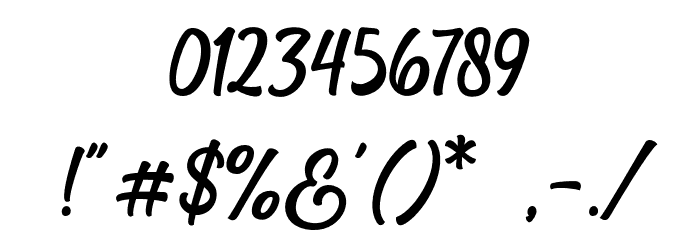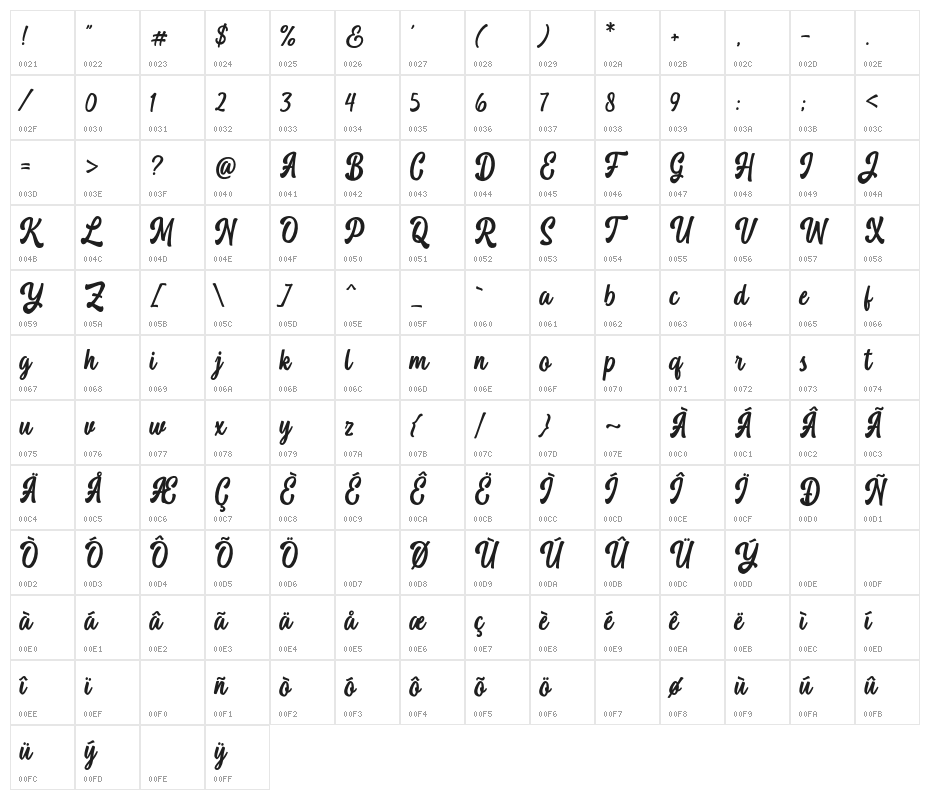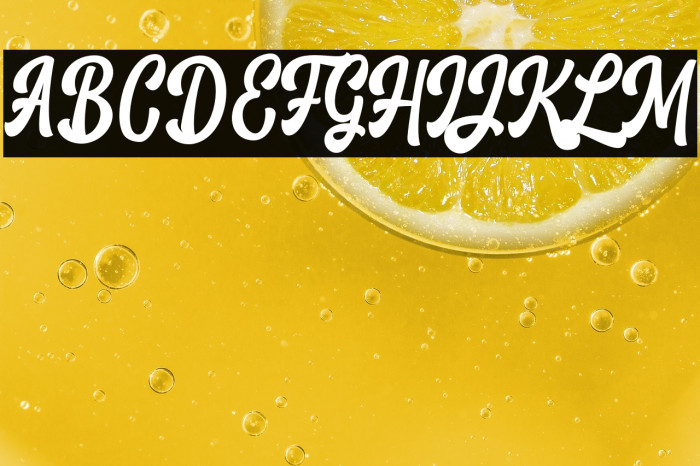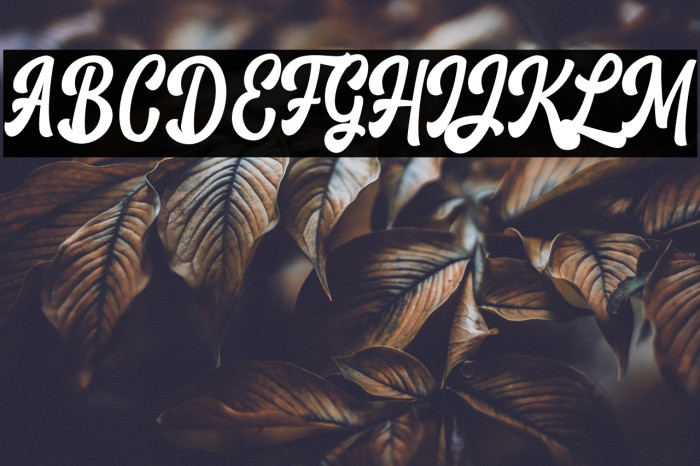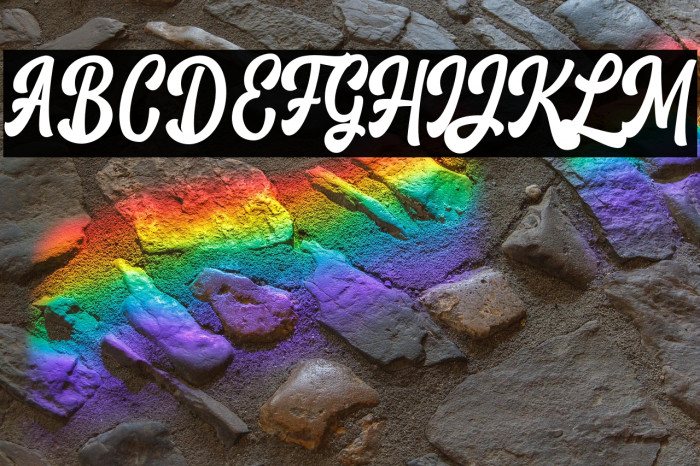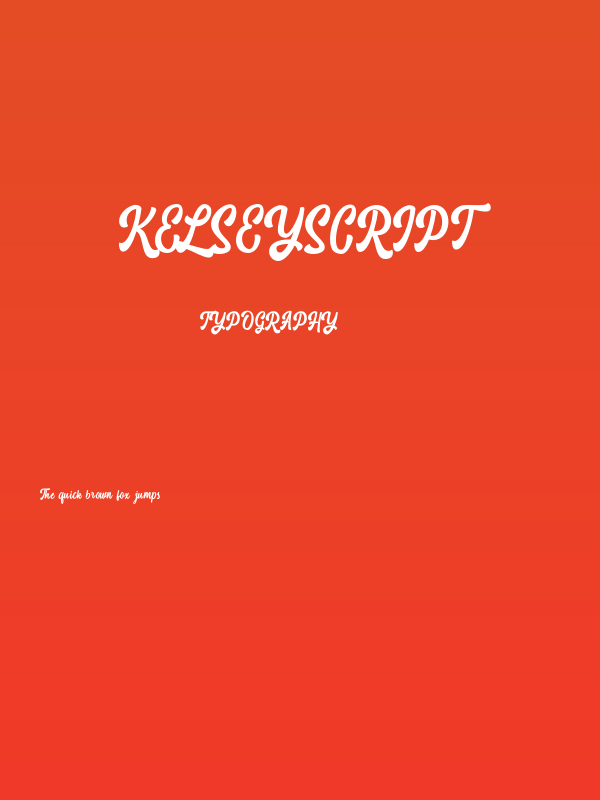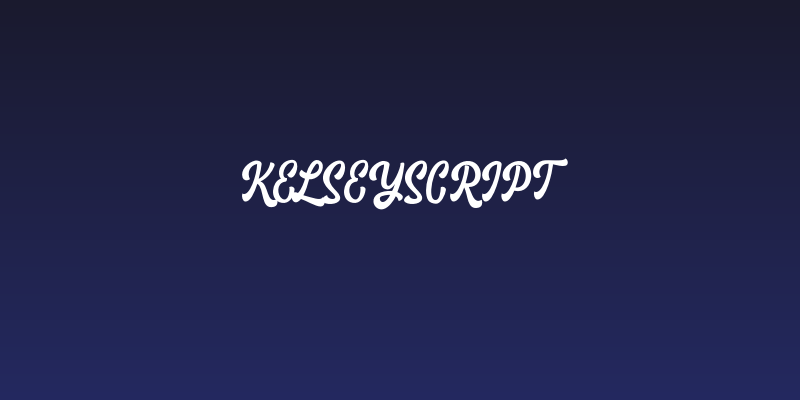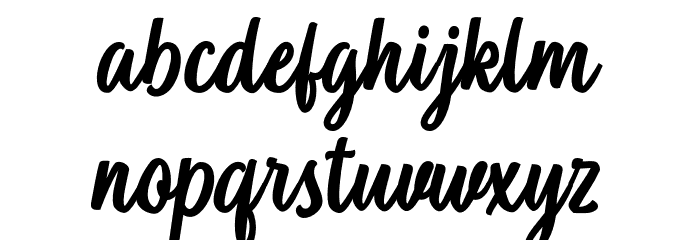
KelseyScript Font
KelseyScript Description
This font features a flowing, cursive style that mimics elegant handwriting. The characters are connected, creating a seamless and fluid appearance. The uppercase letters are bold and prominent, while the lowercase letters maintain a consistent flow, enhancing readability. The numerals and special characters are designed to match the script style, ensuring a cohesive look across all text elements. The font's overall aesthetic is both classic and sophisticated, making it suitable for a variety of creative applications.